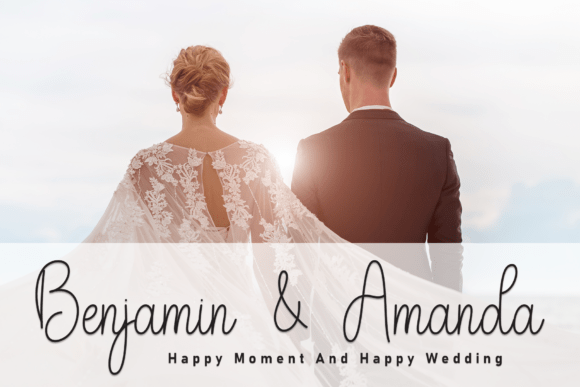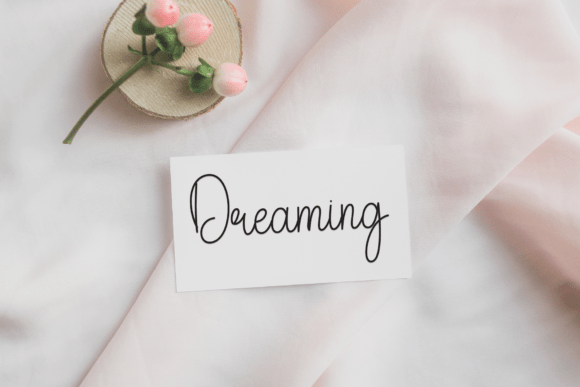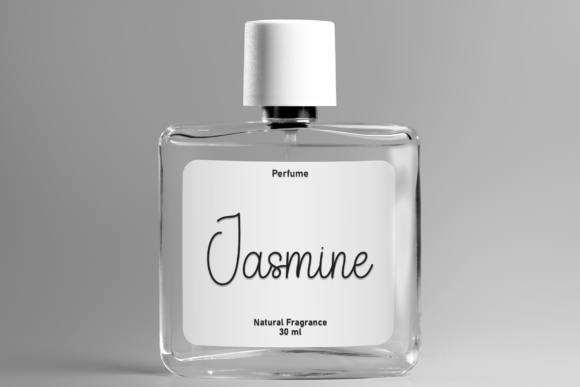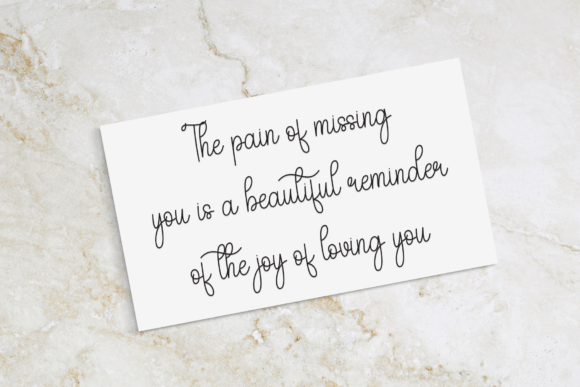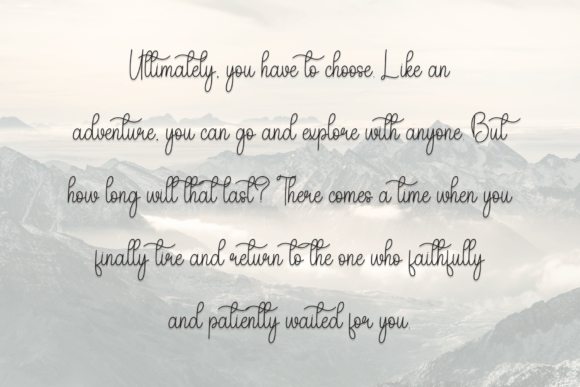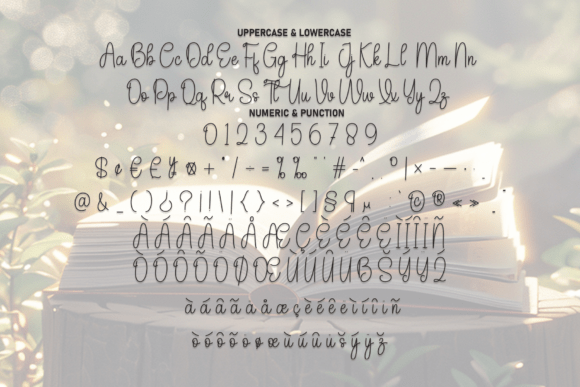
Introducing Dearstory Font: The Epitome of Elegance and Whimsy
Are you a designer or crafter on the hunt for a font that exudes elegance, whimsy, and a touch of romance? Look no further than Dearstory Font, a beautiful monolinear typeface that is sure to capture your heart. In this article, we’ll dive into the unique features of Dearstory Font, its uses, and why it’s a must-have for any creative project.
A Font that Embodies Charm and Sophistication
Dearstory Font is an elegant and whimsical monolinear font that boasts a charming, hand-lettered aesthetic. Its slender, flowing strokes with perfectly rounded terminals and a natural, upright posture evoke a sense of refinement and poise. The typeface’s most distinctive design element, however, is the inclusion of heart-shaped flourishes integrated directly into the entry and exit swashes. This thoughtful design choice creates a romantic and heartfelt visual rhythm that is sure to leave a lasting impression.
Ideal Uses for Dearstory Font
Dearstory Font is a versatile typeface that lends itself perfectly to a variety of creative projects. Some of the most popular uses for this font include:
- Sentimental Greeting Cards: Whether you’re designing a birthday card, a get-well card, or a holiday greeting, Dearstory Font is the perfect choice. Its elegant and whimsical design elements will add a touch of warmth and personality to your cards.
- Wedding Stationery: Make your wedding invitations, programs, and other stationery truly unforgettable with Dearstory Font. Its romantic and heartfelt design elements will set the tone for a beautiful and memorable wedding celebration.
- Boutique Branding: Dearstory Font is an excellent choice for boutique branding, particularly for businesses that specialize in floral arrangements, gift shops, and other romantic or whimsical products. Its elegant and charming design elements will help your brand stand out and leave a lasting impression on customers.
- Personal Storytelling Projects: Whether you’re creating a journal, a scrapbook, or a personal blog, Dearstory Font is a great choice. Its unique and whimsical design elements will add a touch of personality and charm to your storytelling projects.
What Sets Dearstory Font Apart
So, what makes Dearstory Font so special? Here are just a few features that set it apart from other typefaces:
- Monolinear Design: Dearstory Font features a monolinear design, which means that the strokes are of uniform width. This creates a clean and elegant look that is perfect for a variety of creative projects.
- Heart-Shaped Flourishes: The heart-shaped flourishes integrated into the entry and exit swashes are a unique and thoughtful design element. They add a touch of romance and whimsy to the font, making it perfect for projects that require a personal touch.
- Perfectly Rounded Terminals: The perfectly rounded terminals of Dearstory Font add a touch of softness and elegance to the typeface. They also help to create a sense of flow and continuity, making the font easy to read and visually appealing.
Tips for Using Dearstory Font
Here are a few tips for getting the most out of Dearstory Font:
- Use it as a Display Font: Dearstory Font is perfect for use as a display font, particularly for headings and titles. Its elegant and whimsical design elements make it a great choice for grabbing attention and adding visual interest to your projects.
- Pair it with a Simple Font: To create visual interest and add contrast to your projects, consider pairing Dearstory Font with a simple font. This will help to create a clear hierarchy of information and make your projects more visually appealing.
- Experiment with Colors and Textures: Dearstory Font looks great in a variety of colors and textures. Don’t be afraid to experiment and find the perfect combination to suit your project’s needs.
Dearstory Font is a beautiful and versatile typeface that is sure to capture your heart. Its elegant and whimsical design elements, including heart-shaped flourishes and perfectly rounded terminals, make it a great choice for a variety of creative projects. Whether you’re designing sentimental greeting cards, wedding stationery, boutique branding, or personal storytelling projects, Dearstory Font is a premier choice. So why wait? Give Dearstory Font a try today and see the difference it can make in your designs!